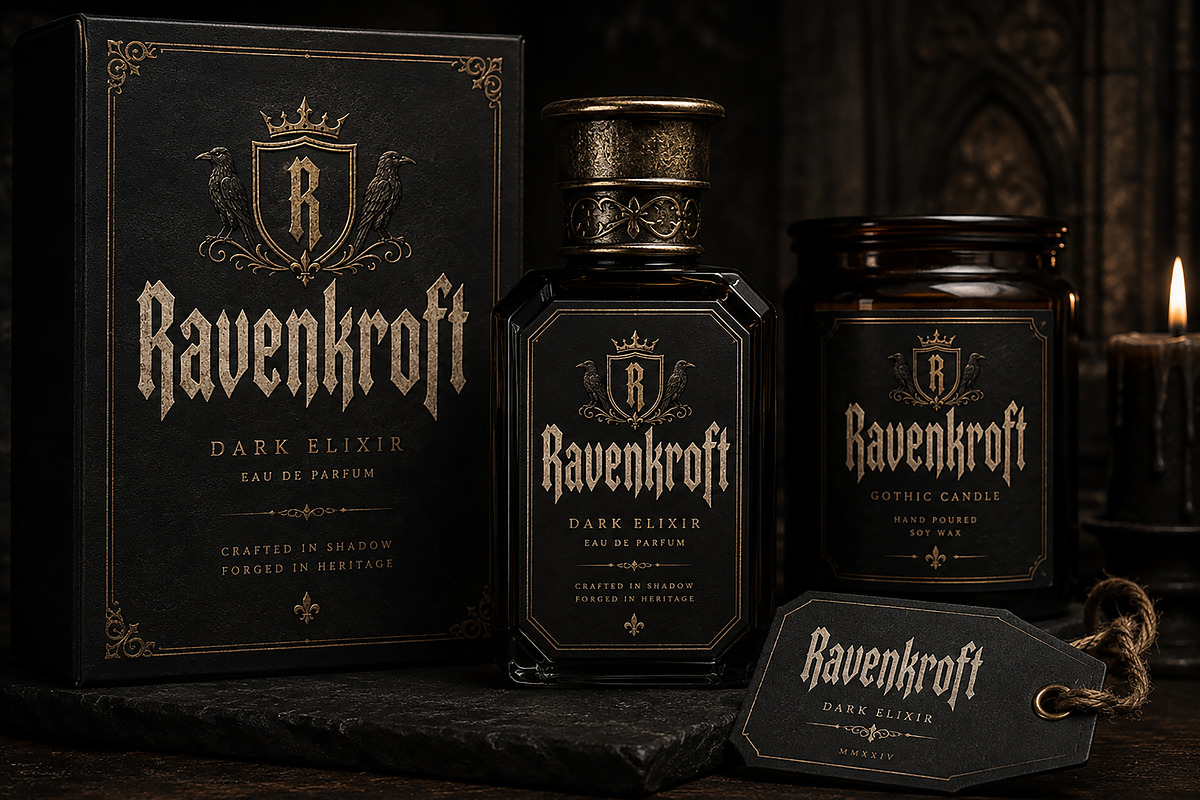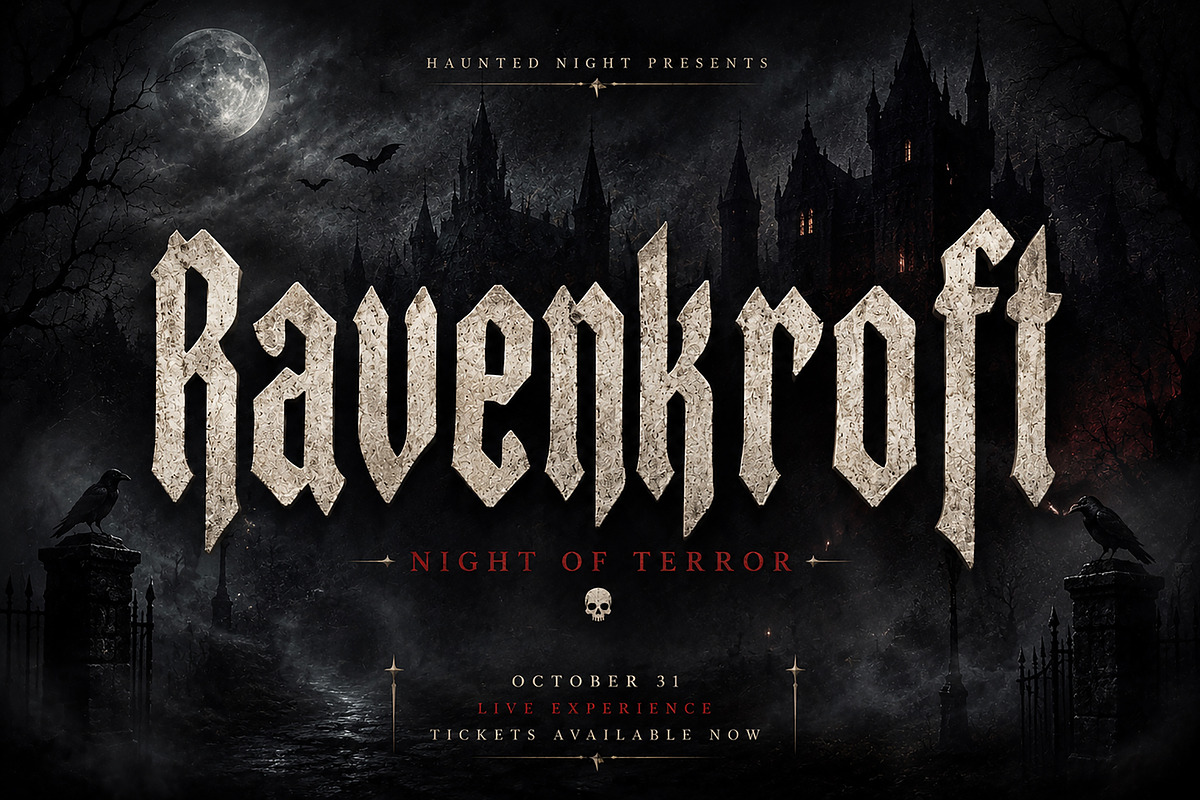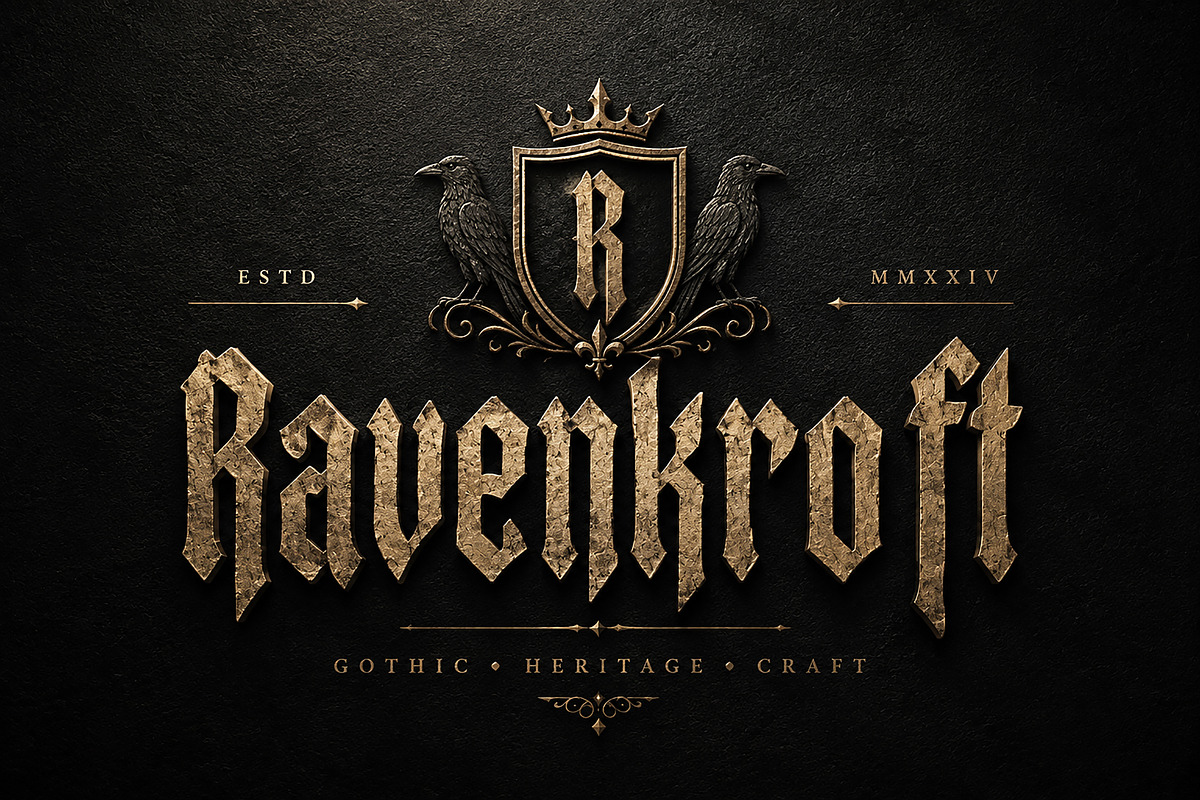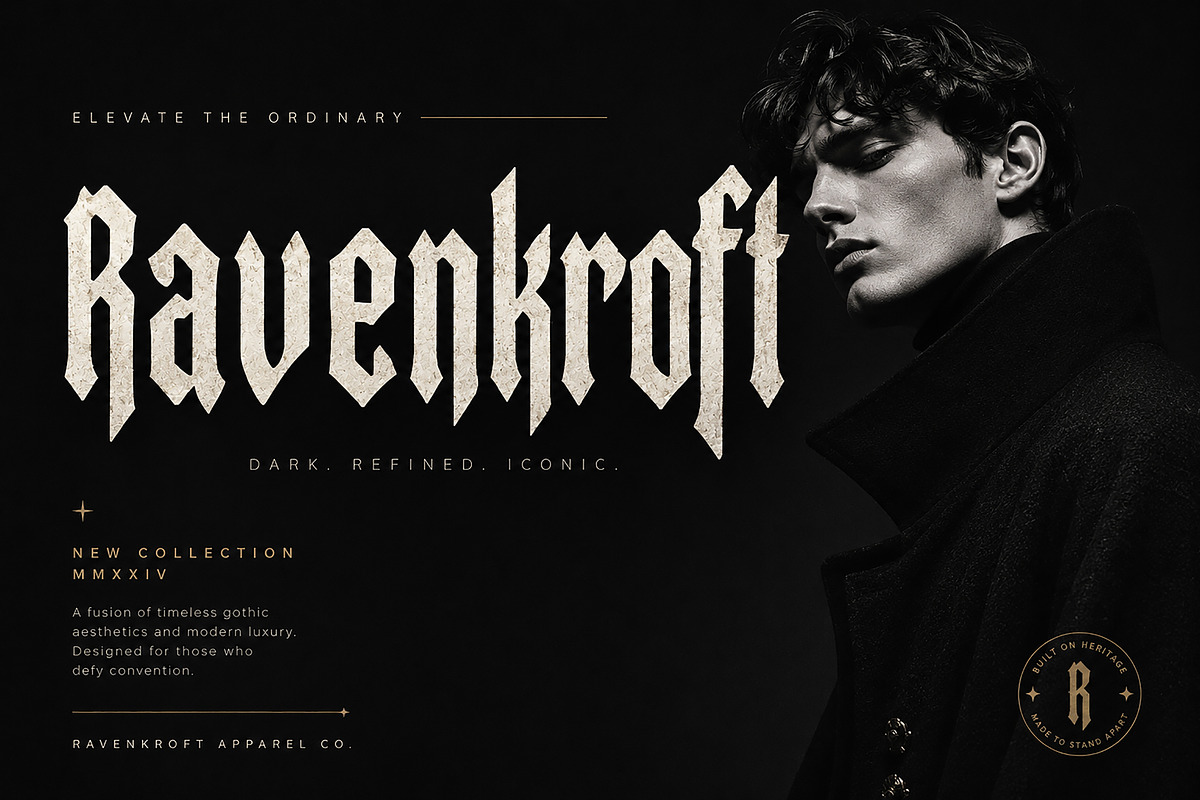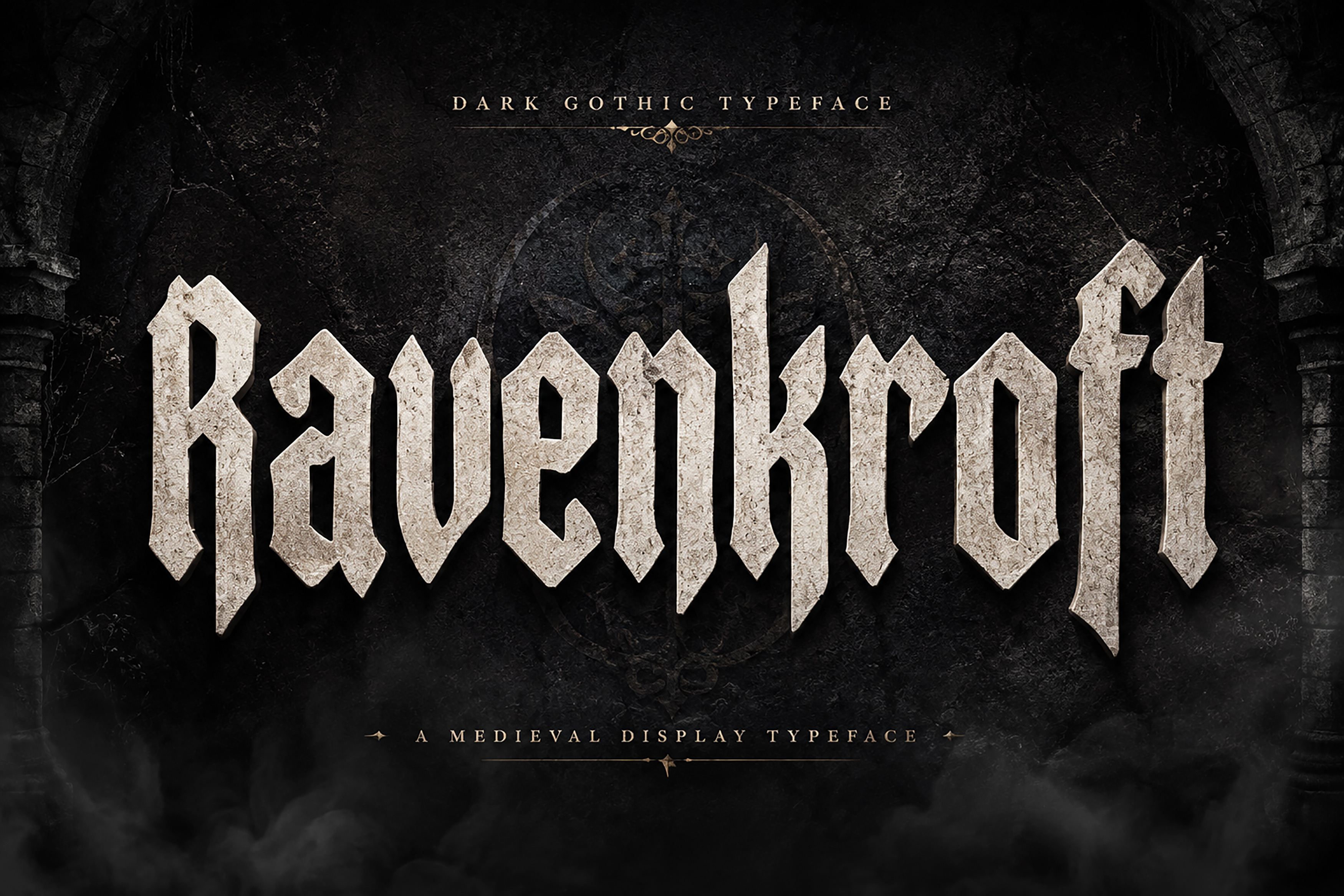
Ravenkroft — Gothic Blackletter Font
Ravenkroft is a bold and dramatic Gothic Blackletter typeface inspired by medieval lettering, dark heritage, and mysterious old-world aesthetics. With its sharp, angular letterforms and strong visual presence, Ravenkroft is designed to make headlines, logos, and display typography instantly stand out.
Its distinctive medieval character makes it a great choice for gothic branding, horror posters, Halloween designs, medieval artwork, fashion graphics, album covers, merchandise, labels, packaging, tattoos, gaming projects, and dark-themed promotional designs.
Ravenkroft works especially well when you need typography that feels powerful, mysterious, rebellious, historic, and unforgettable.
Gothic Logos & Branding
Horror & Halloween Designs
Medieval & Fantasy Artwork
Movie & Event Posters
Album & Music Artwork
T-Shirt & Merchandise Designs
Tattoo & Apparel Graphics
Dark Fashion & Editorial Design
Product Labels & Packaging
Book Covers & Titles
Gaming & Esports Graphics
Font Name: Ravenkroft
Style: Gothic / Blackletter / Medieval Display
Bring a dark medieval atmosphere and powerful Gothic personality to your next creative project with Ravenkroft.